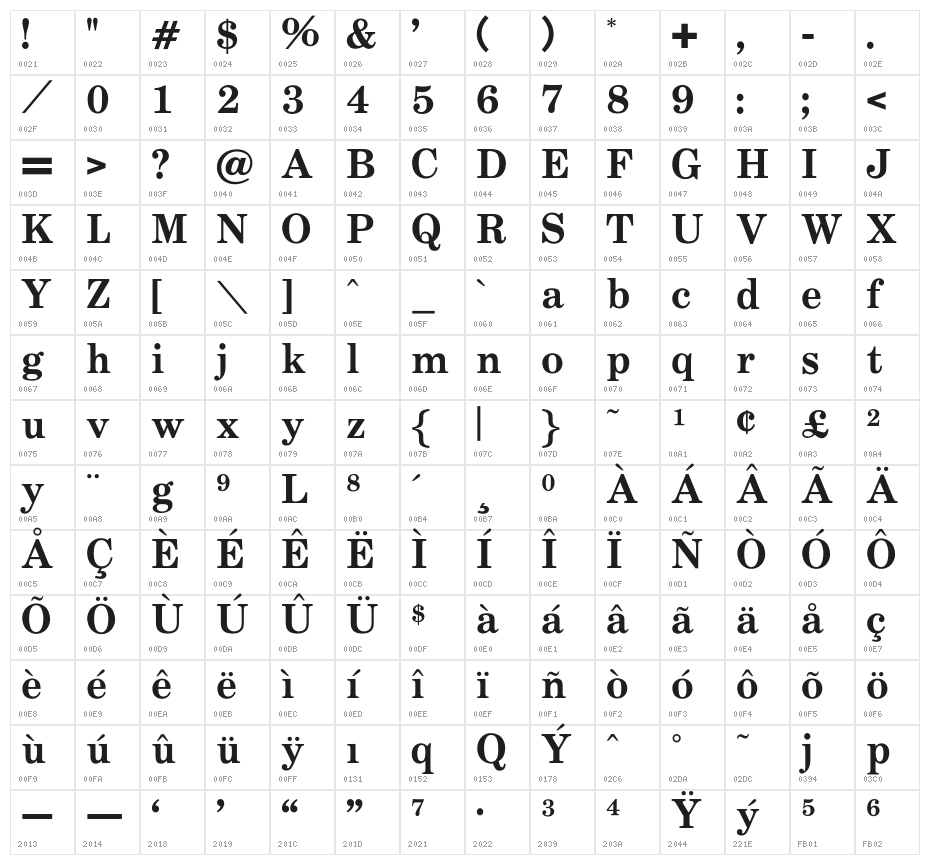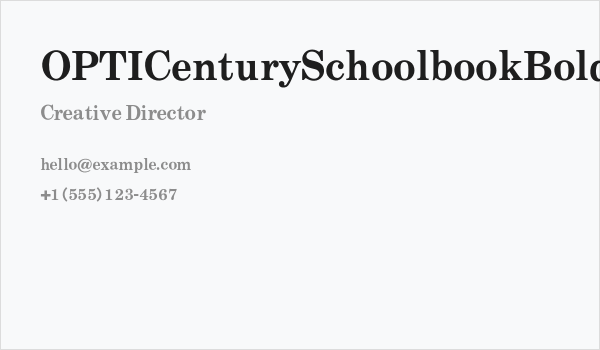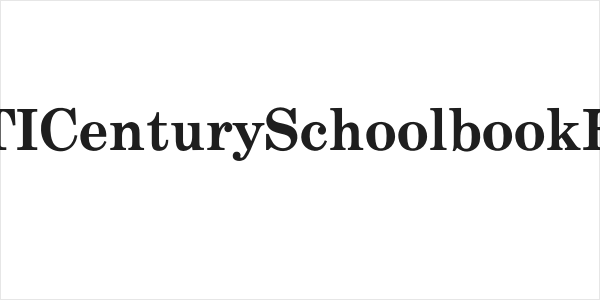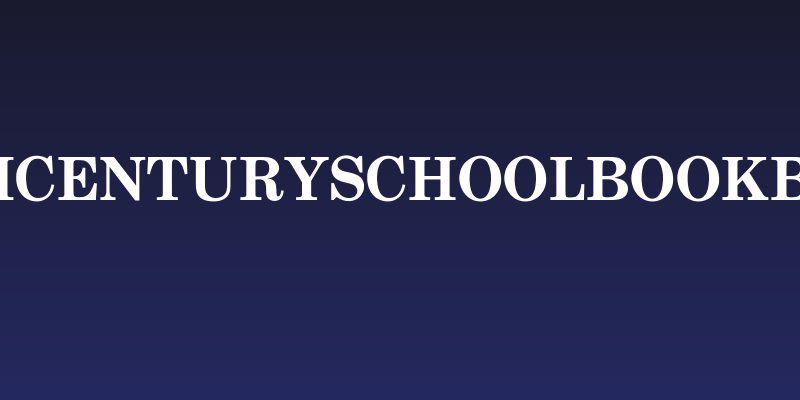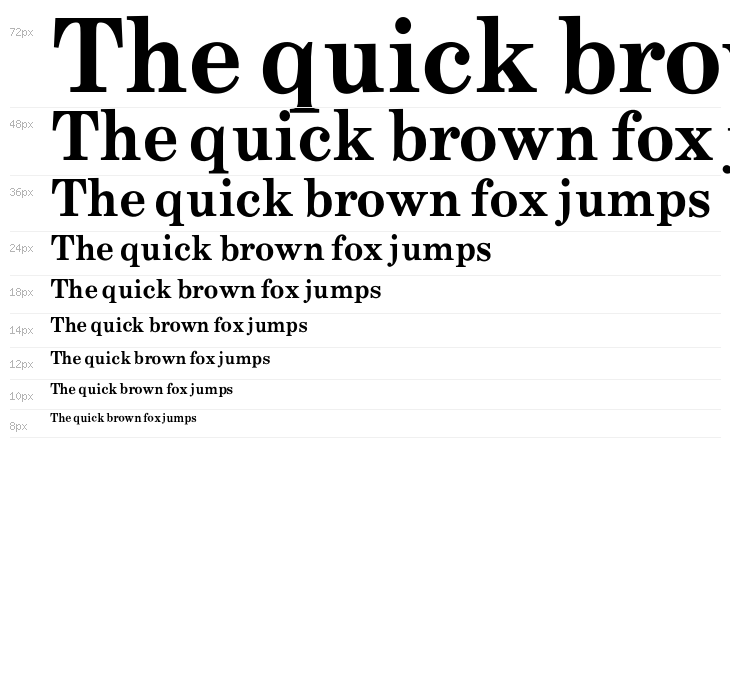
OPTICenturySchoolbookBold Font
OPTICenturySchoolbookBold Description
This typeface exhibits a classic serif style with strong, bold strokes and a traditional appearance. The characters are well-defined with prominent serifs that enhance readability and lend a sense of authority and formality. The uppercase letters are stately and balanced, while the lowercase letters maintain a consistent weight and structure. Numerals are clear and robust, making them suitable for both text and display purposes. The special characters are crafted with precision, ensuring they integrate seamlessly with the rest of the typeface. Overall, this font conveys a sense of reliability and timelessness, making it ideal for formal documents, educational materials, and professional branding.
| Proposed Projects | Ideal for use in formal documents, educational materials, professional branding, and editorial design. |